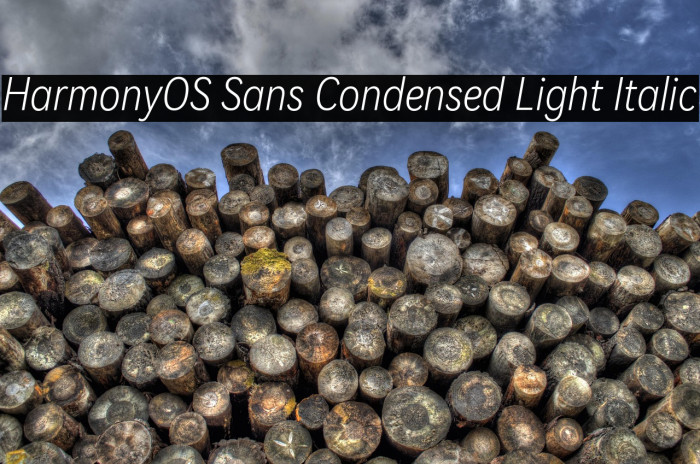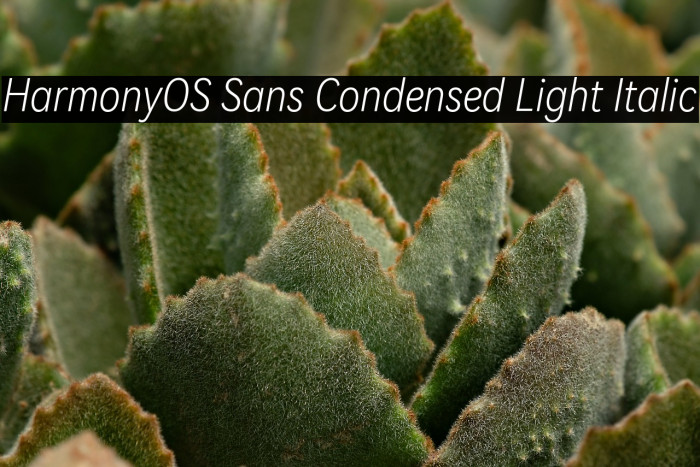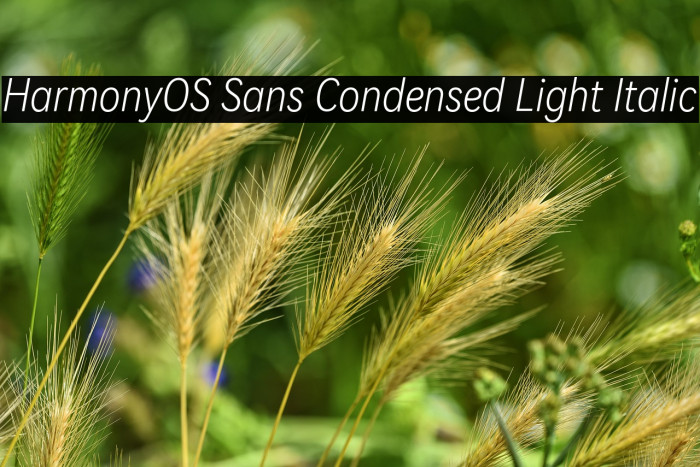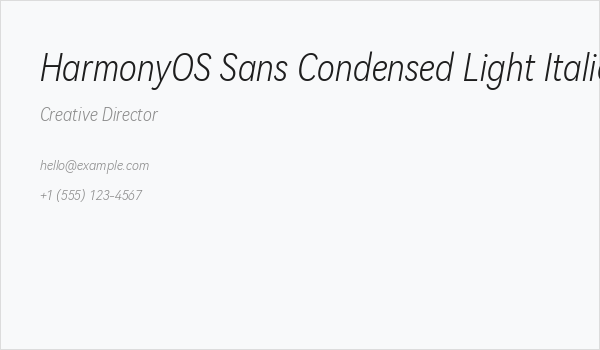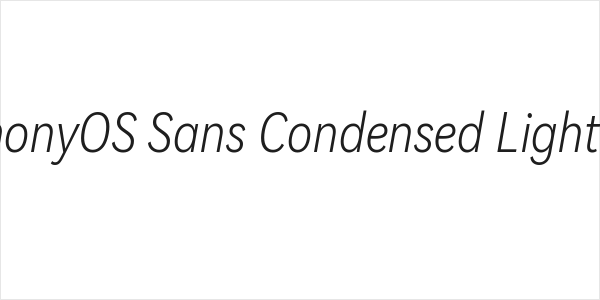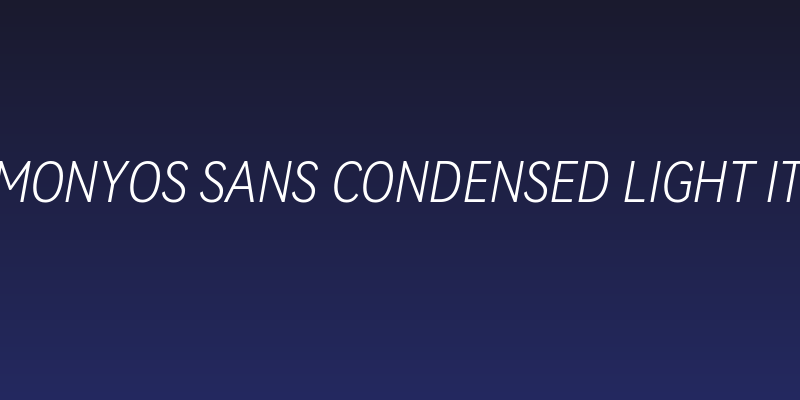
HarmonyOS Sans Condensed Light Italic Font
HarmonyOS Sans Condensed Light Italic Description
This font features a sleek and modern design with a condensed structure that emphasizes clarity and readability. The light weight and italic style give it a sophisticated and elegant appearance, making it suitable for various design contexts. The characters are well-balanced with a consistent stroke width, contributing to its clean and streamlined look. The spacing between characters is tight, enhancing its compact form while maintaining legibility. This font's minimalist aesthetic is ideal for contemporary projects that require a touch of refinement.
| Proposed Projects | Ideal for modern branding, editorial design, digital interfaces, and minimalist posters. |